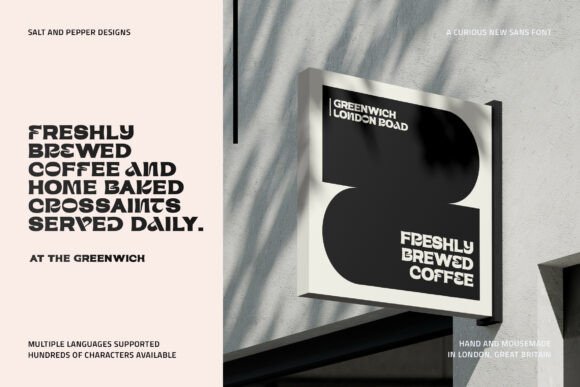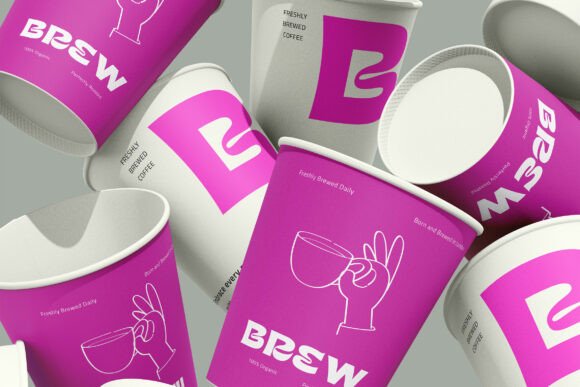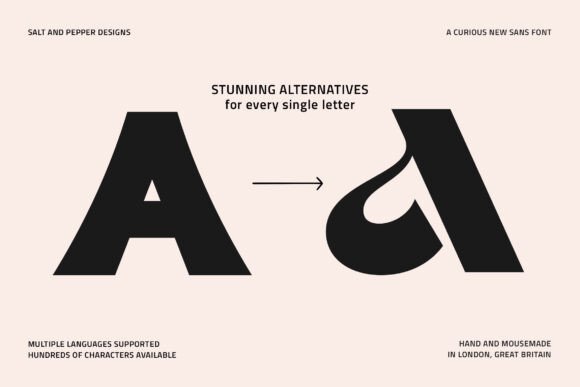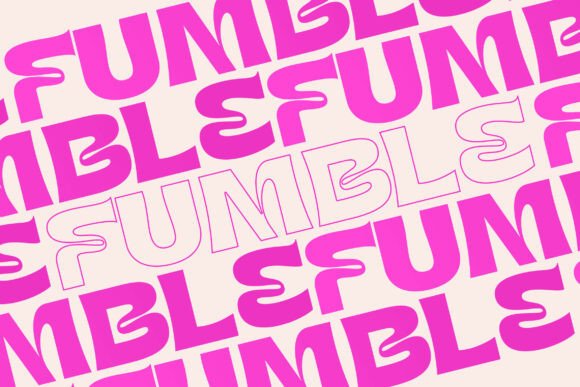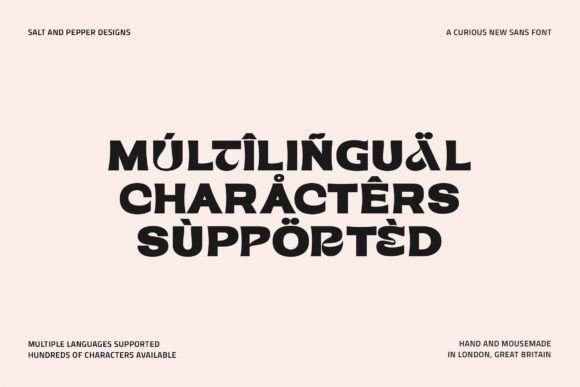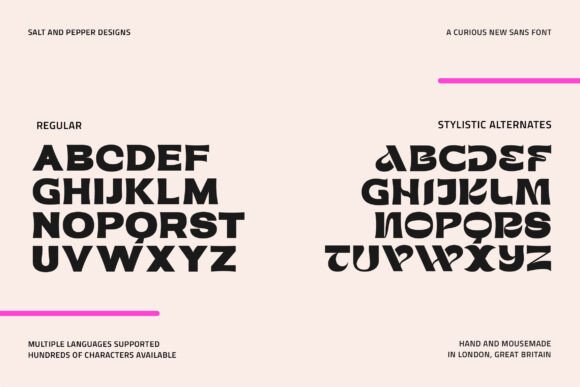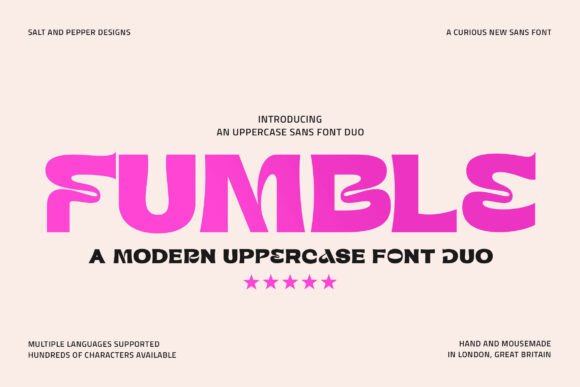
Fumble Font: The Ultimate Bold and Quirky Uppercase Sans-Serif Font Duo
In the world of typography, fonts play a crucial role in conveying the tone and personality of a brand or design. For creatives looking to make a statement, a font that combines modern playfulness with confident design is essential. Introducing Fumble Font, a bold and quirky uppercase sans-serif font duo that’s perfect for branding, headlines, posters, and anything that demands attention.
What is Fumble Font?
Fumble Font is a thoughtfully crafted font duo that consists of two unique styles, each with its own distinct character. This uppercase sans-serif font is designed to be highly legible, making it perfect for use in a variety of applications, from digital media to print materials. The font’s bold and quirky design ensures that it stands out from the crowd, adding a touch of personality to any project.
Key Features of Fumble Font
• Exaggerated Curves: Fumble Font features exaggerated curves that add a playful touch to its design. These curves not only make the font more visually appealing but also help to create a sense of movement and energy.
• Creative Character Design: Each character in Fumble Font has been carefully crafted to ensure that it is unique and visually appealing. The font’s creative character design makes it perfect for use in headlines, titles, and other applications where a bold and quirky font is required.
• Modern Playfulness: Fumble Font combines modern playfulness with confident design, making it perfect for creatives looking to bring a fun yet stylish edge to their projects.
• Confident Design: Despite its playful nature, Fumble Font exudes confidence and sophistication, making it perfect for use in a variety of applications, from branding to advertising.
Uses of Fumble Font
Fumble Font is a versatile font duo that can be used in a variety of applications, including:
• Branding: Fumble Font is perfect for use in branding applications, such as logos, business cards, and letterheads. Its bold and quirky design ensures that it stands out from the crowd, helping to create a lasting impression.
• Headlines: The font’s bold and attention-grabbing design makes it perfect for use in headlines, titles, and other applications where a bold font is required.
• Posters: Fumble Font is ideal for use in posters, flyers, and other print materials. Its exaggerated curves and creative character design ensure that it grabs attention and communicates the message effectively.
• Digital Media: Fumble Font can also be used in digital media, such as social media graphics, website headers, and email marketing campaigns.
Why Choose Fumble Font?
There are many fonts available that claim to be bold and quirky, but Fumble Font stands out from the crowd. Here are just a few reasons why:
• Unique Design: Fumble Font has a unique design that sets it apart from other fonts. Its exaggerated curves and creative character design ensure that it is highly legible and visually appealing.
• Highly Versatile: Fumble Font is a highly versatile font duo that can be used in a variety of applications, from branding to digital media.
Fumble Font is a bold and quirky uppercase sans-serif font duo that’s perfect for creatives looking to bring a fun yet stylish edge to their projects. Its exaggerated curves and creative character design make it perfect for use in branding, headlines, posters, and anything that demands attention. With its highly legible design and versatile nature, Fumble Font is an excellent choice for any designer or craft looking to make a statement.